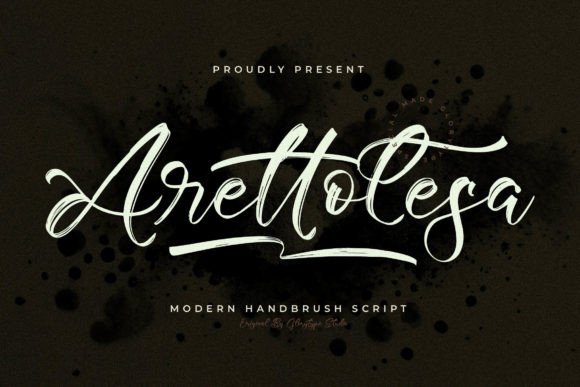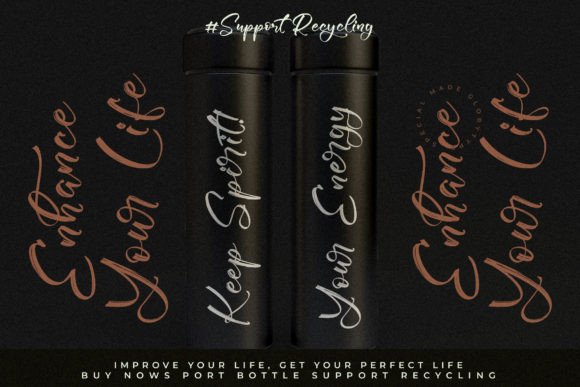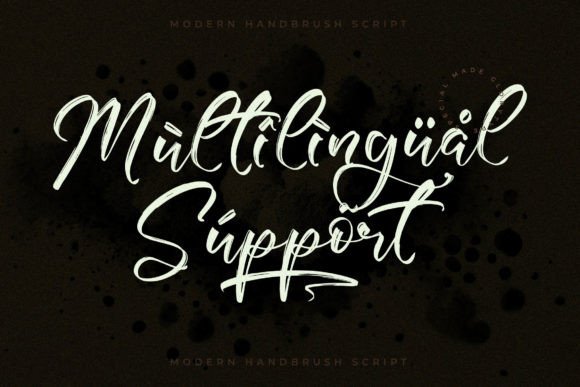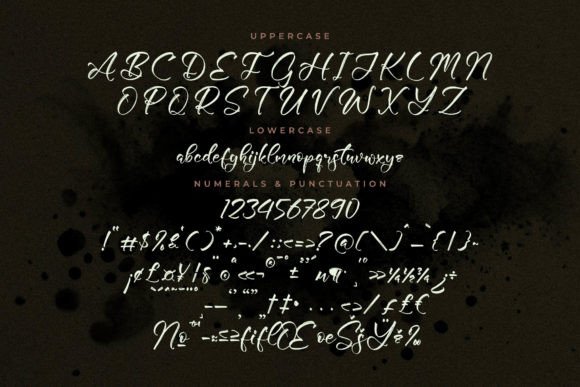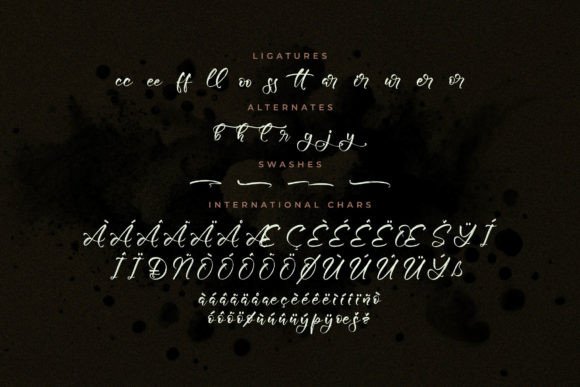
Add Modern Flair with Arettolesa Font
The Arettolesa font is a modern handbrush script designed to bring a fresh and beautiful touch to your creative projects. Suitable for logos, branding projects, homeware designs, product packaging, mugs, quotes, posters, shopping bags, t-shirts, book covers, name cards, invitation cards, greeting cards, labels, photography watermarks, special events, and much more, Arettolesa adds elegance and personality to every design.
Perfect for Diverse Creative Projects
The Arettolesa font works seamlessly across a wide range of applications, including brand logos, product packaging, merchandise design, stationery, social media graphics, event invitations, and decorative crafts. Its smooth brush strokes and natural flow give your projects an authentic and stylish appeal.
A Handbrush Script with Versatile Style
Each character in the Arettolesa font is carefully crafted to deliver smooth, readable strokes that combine modern style with artistic flair. This font balances creativity with legibility, making it suitable for both bold headlines and intricate text elements.
Stylish, Readable, and Adaptable Typography
Despite its artistic brush style, the Arettolesa font maintains excellent readability at various sizes. Whether used for logos, product labels, or smaller text, it balances elegance with clarity, making it a versatile choice for many creative projects.
Make Your Designs Shine with Beautiful Brush Strokes